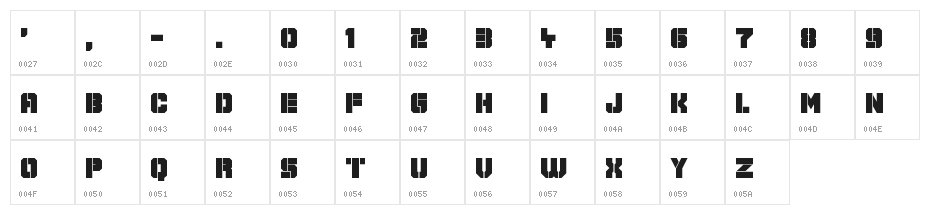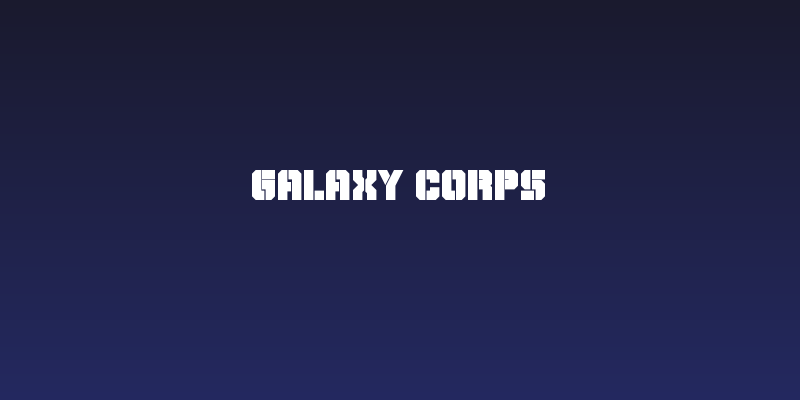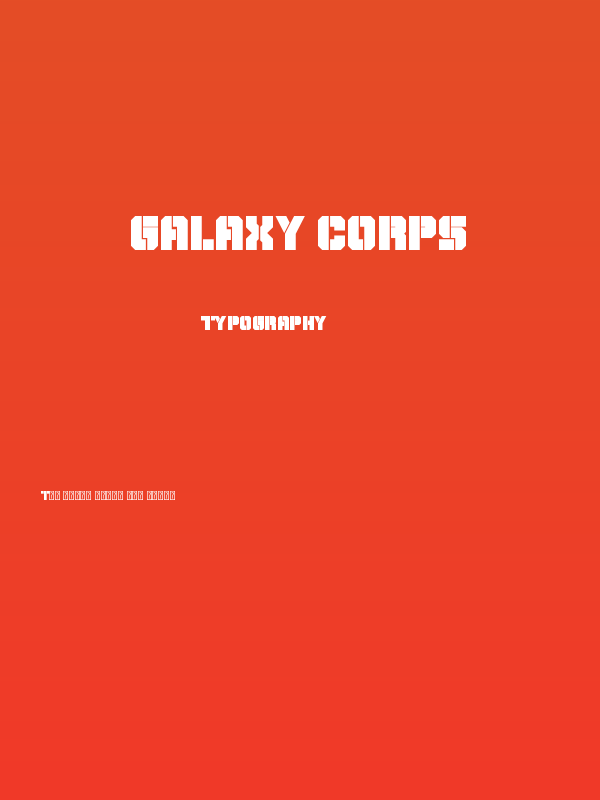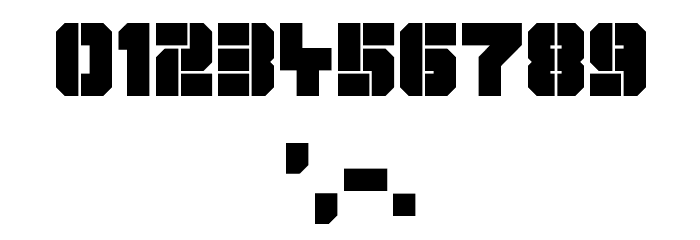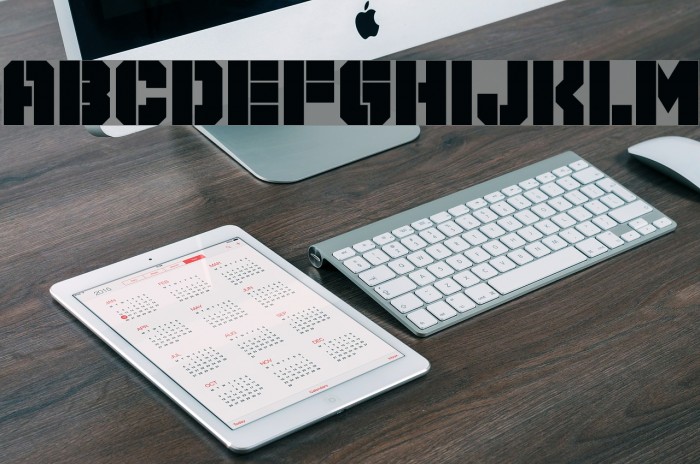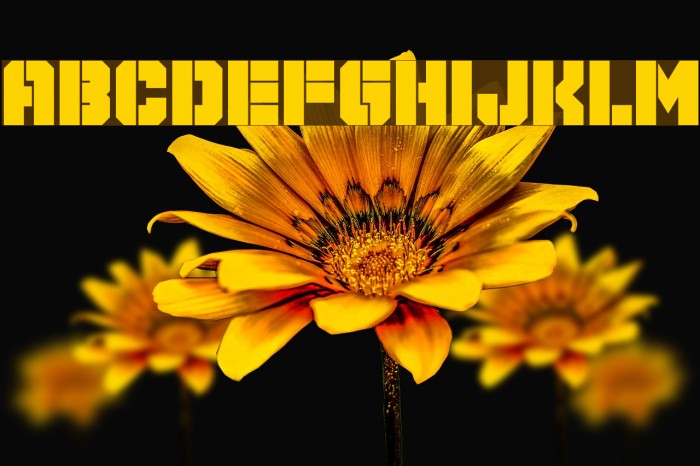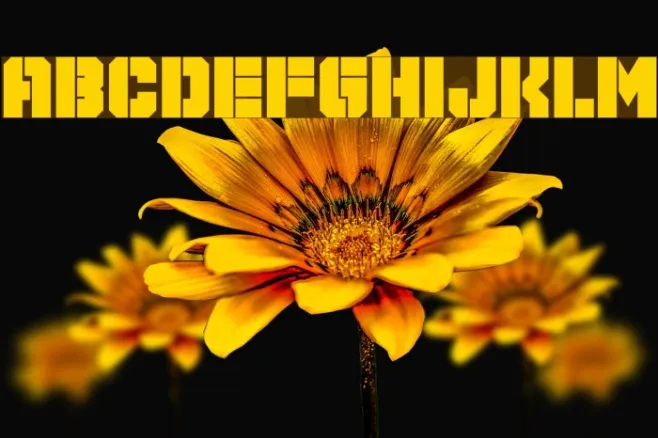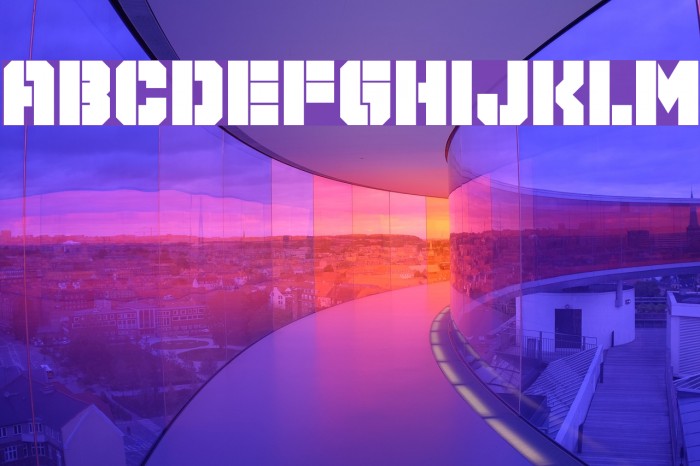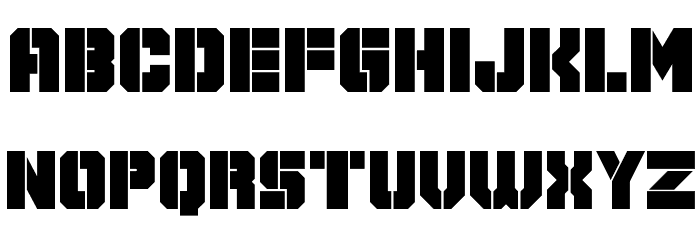
Galaxy Corps Font
Galaxy Corps Description
This font features a bold, geometric design with a futuristic aesthetic. The characters are constructed with sharp angles and straight lines, creating a blocky and robust appearance. The uppercase and lowercase letters share a similar structure, emphasizing uniformity and consistency. The numerals and special characters maintain the same bold and angular style, ensuring a cohesive look across all glyphs. This font's unique design makes it stand out, ideal for projects that require a modern and impactful visual presence.
| Proposed Projects | Ideal for sci-fi themed projects, video game titles, technology branding, and modern posters. |